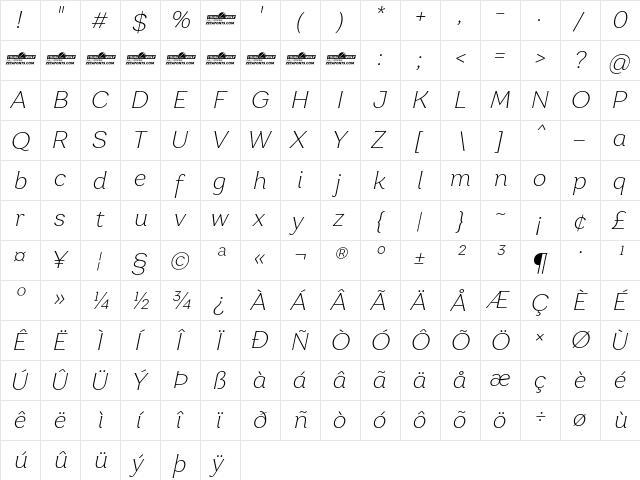
Garbata Trial Extralight Italic
Design Context for Garbata Trial Typeface
Garbata Trial offers clean, dependable letterforms without strong stylistic allegiance, making it a practical choice for designers who need flexibility. Its italic angle brings a sense of urgency and motion to the letterforms. Its slender proportions lend an understated elegance to any composition.
Pro Tip: Try Garbata Trial for annotation and caption copy alongside an upright companion — the contrast in angle creates a dynamic but ordered typographic system.